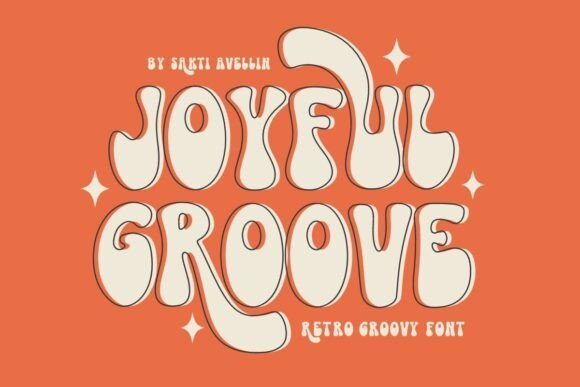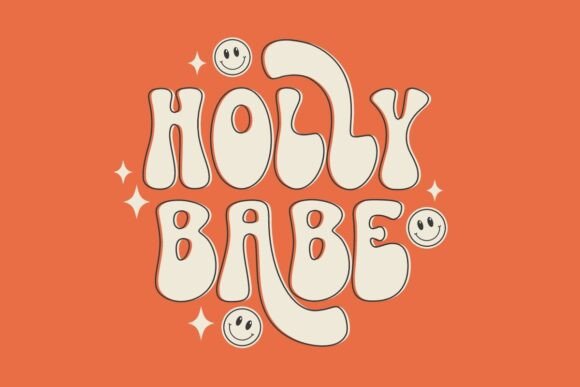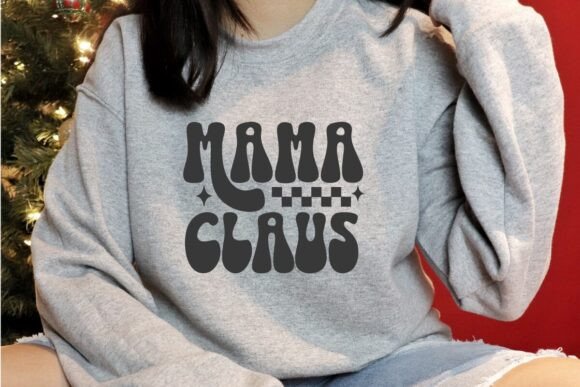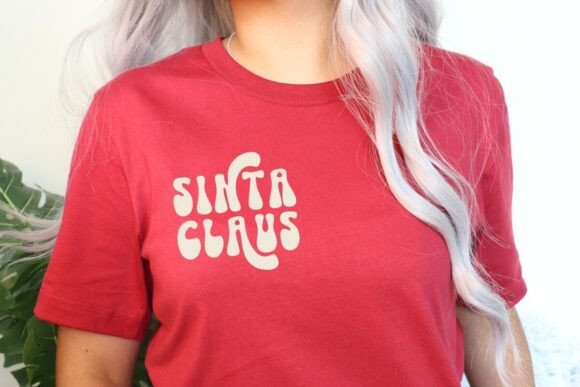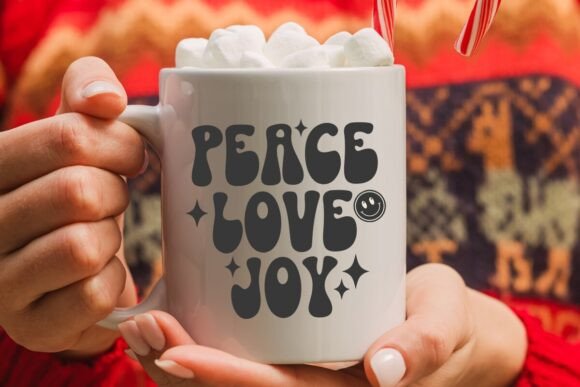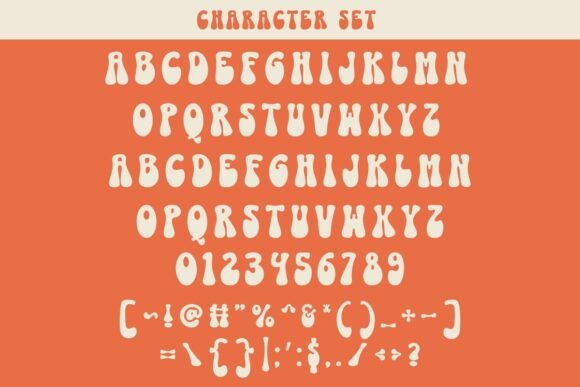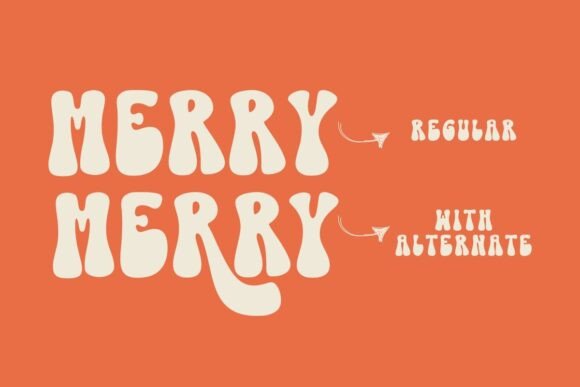
Unlock the Magic of Joyful Groove Font
Imagine you’re sitting at your desk, surrounded by scraps of paper, glitter, and a warm cup of coffee. You’re tasked with creating a festive holiday card for your loved ones, and the pressure’s on to make it extra special. That’s when you stumble upon the perfect tool to elevate your design – Joyful Groove Font. This enchanting font is more than just a typographic asset; it’s a key to unlocking your creativity and bringing warmth to any project.
With its breezy and whimsical vibe, Joyful Groove Font is the ultimate companion for designers seeking to infuse their work with a sense of joy and festivity. Its unique letter substitution feature allows you to add a personal touch to your designs, making each project a reflection of your personality. Whether you’re crafting a holiday invitation, designing a quote graphic, or creating a custom doormat, Joyful Groove Font is the perfect tool to get you started.
Key Features of Joyful Groove Font
- Font Family: Joyful Groove is a unique, hand-drawn font designed for creating a playful and energetic atmosphere.
- Unique Characteristics: Features a distinctive, hand-crafted feel with irregular shapes and varying line widths, adding a touch of personality to any design.
- Character Count: Includes a comprehensive set of characters, including uppercase and lowercase letters, numbers, punctuation, and special symbols.
Designer Review: Joyful Groove Font
I’ve had the chance to play around with the Joyful Groove Font, and here’s my honest take:
The Joyful Groove Font has a clear, upbeat vibe that’s perfect for projects that need a bit of whimsy. The rounded edges and smooth lines make it easy on the eyes, and the font is surprisingly legible even at smaller sizes.
- Great for creating eye-catching titles and headings
- Clean and modern aesthetic that works well for digital designs
- Good for targeting a younger audience or creating a playful atmosphere
While the Joyful Groove Font has its charm, there are a few areas where it falls short:
- Limited character set, which may not be suitable for complex text-based projects
- May not be the best choice for formal or professional designs
- Could benefit from additional font weights and styles to increase versatility
Overall, the Joyful Groove Font is a fun and engaging choice for designers looking to add some personality to their projects. While it may not be the most versatile font, it’s perfect for creating a lighthearted and playful atmosphere. Just be mindful of its limitations and use it accordingly.
The Joyful Groove Font is perfect for:
1. Creating happy and playful designs.
2. Adding a touch of whimsy to your branding.
3. Designing children’s products and educational materials.
4. Creating social media graphics and advertisements.
Alternatives to Joyful Groove Font